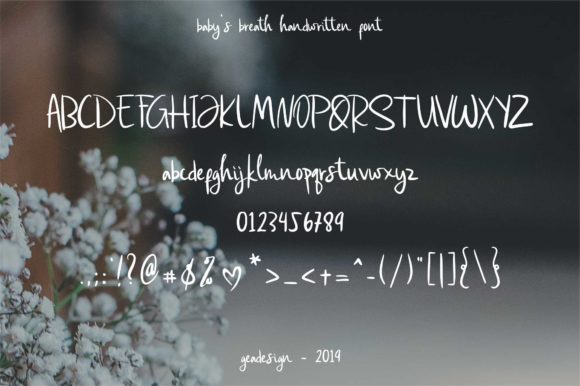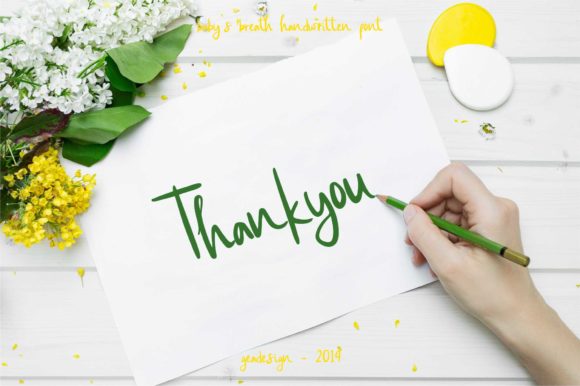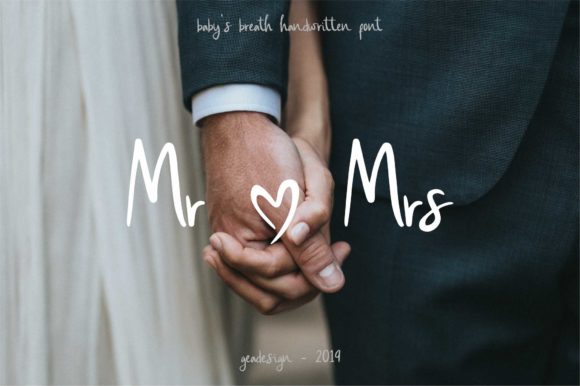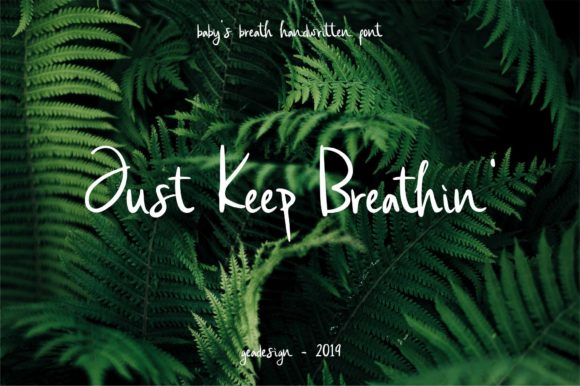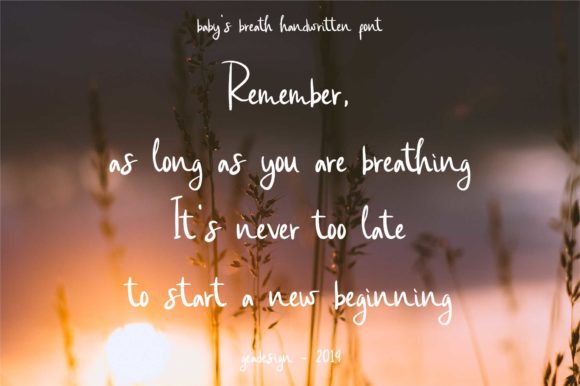
The Perfect Floral Touch: Baby’s Breath Font
Have you ever found yourself strolling through a garden on a warm summer day, surrounded by the sweet scent of blooming flowers, and suddenly feeling inspired to create something beautiful? For designers, those moments of serendipity can be the spark that ignites a new project. For me, it was a field of baby’s breath that sparked the idea to explore the Baby’s Breath Font.
This elegant handwritten font is a delicate blend of simplicity and sweetness, inspired by the very flowers that captured my imagination. With its white, flowing lines, the Baby’s Breath Font is perfect for adding a touch of whimsy to branding, wedding stationery, quotes, and more. Its versatility makes it a valuable asset for designers looking to add a personal touch to their work.
Whether you’re a seasoned designer or just starting out, the Baby’s Breath Font is a must-have in your toolkit. Its beauty lies not only in its aesthetic appeal but also in its ability to evoke emotions and convey a sense of elegance. In this article, we’ll delve deeper into the world of the Baby’s Breath Font and explore its many uses and applications.
Baby’s Breath Font Key Features
- Unique Characteristics: Baby’s Breath Font features a delicate, whimsical design with intricate details and a soft, airy feel, making it perfect for creating a romantic or vintage atmosphere in designs.
- Script and Font Styles: The font includes a script and regular font style, offering users flexibility in choosing the right style to suit their design needs.
Design Review: Baby’s Breath Font
Overall, I’m giving Baby’s Breath Font a solid 3.5 out of 5 stars. It’s a lovely, airy font that can add a touch of whimsy to your designs. ✨
- ✨ Airy, delicate feel that’s perfect for feminine or romantic designs.
- ✨ Large x-height makes it easy to read, even at small sizes.
- ✨ Supports a wide range of languages, making it a great choice for international designs.
- ⚠️ May not be the best choice for bold or dramatic designs, as it can come across as too dainty.
- ⚠️ Some characters may not be fully optimized for digital use, leading to potential issues with kerning or spacing.
- ⚠️ Limited customization options, which may limit its appeal to designers who like to get creative with their fonts.
Overall, I think Baby’s Breath Font is a solid choice for designers who are looking for a delicate, feminine font. While it may not be the most versatile option, it’s a great choice for specific projects that call for a light, airy feel.
The Baby’s Breath Font is ideal for creating whimsical and romantic designs. Some common use cases include:
- Baby shower invitations and decorations
- Floral and botanical designs
For best results, use the Baby’s Breath Font in combination with light-colored backgrounds and pastel-colored accents to create a soft and airy look.